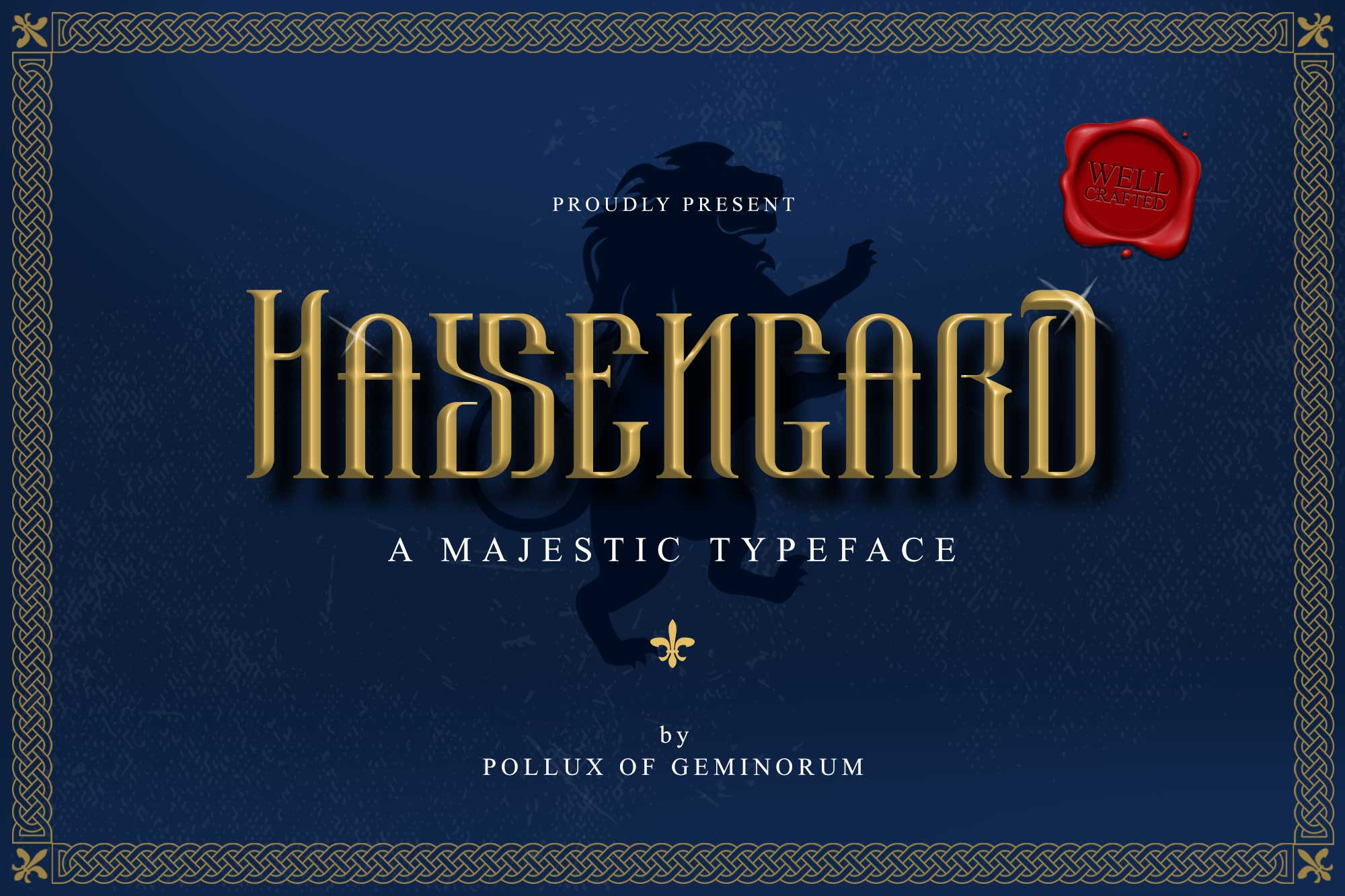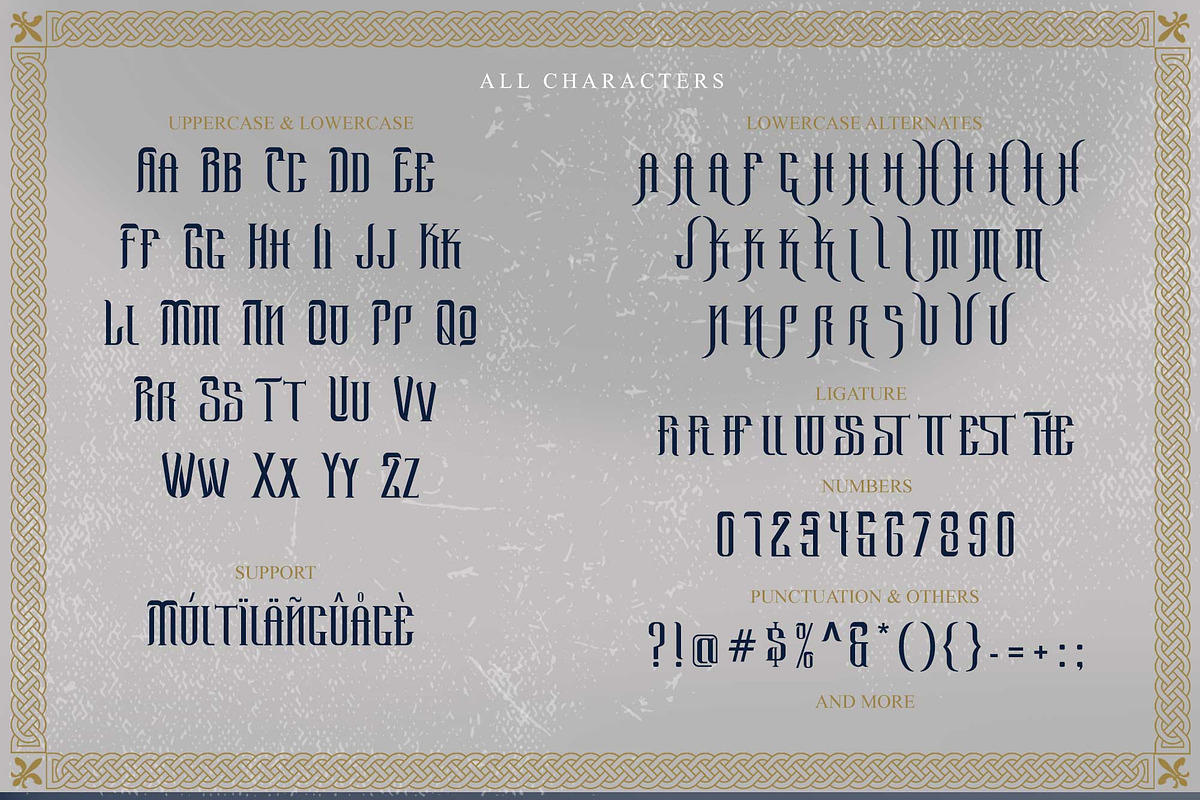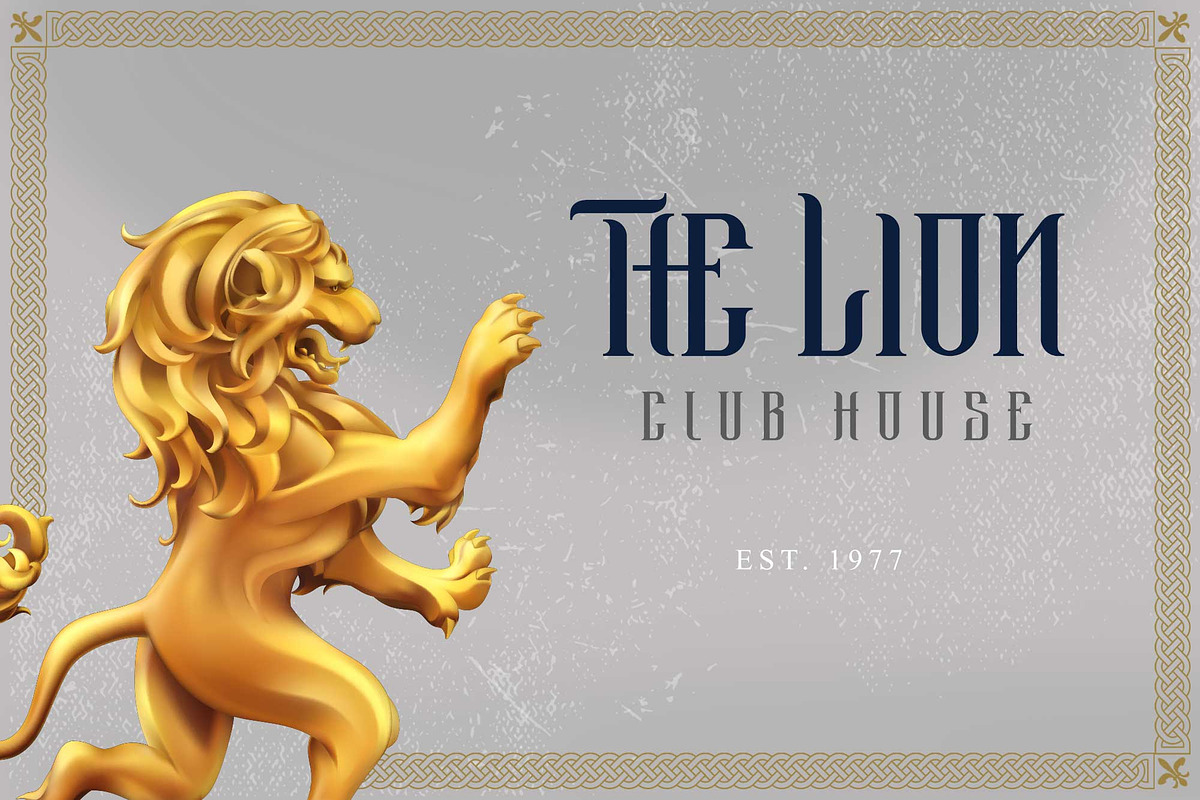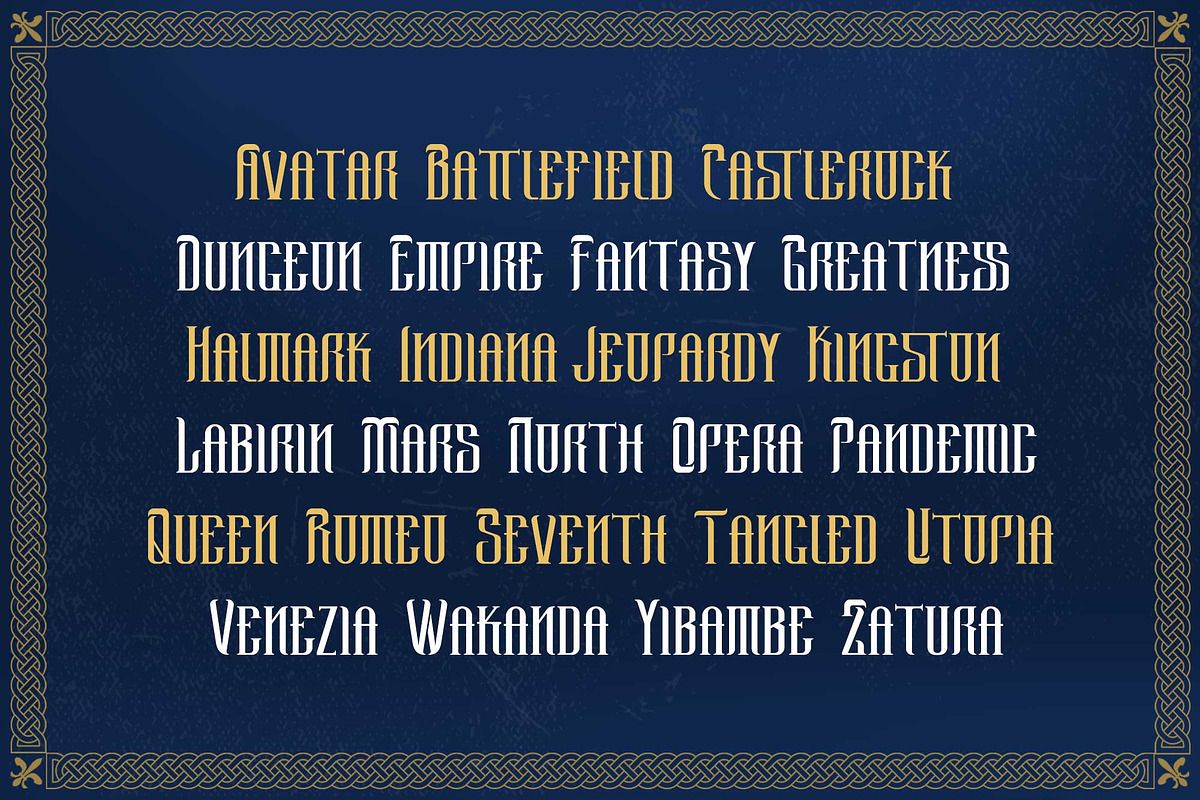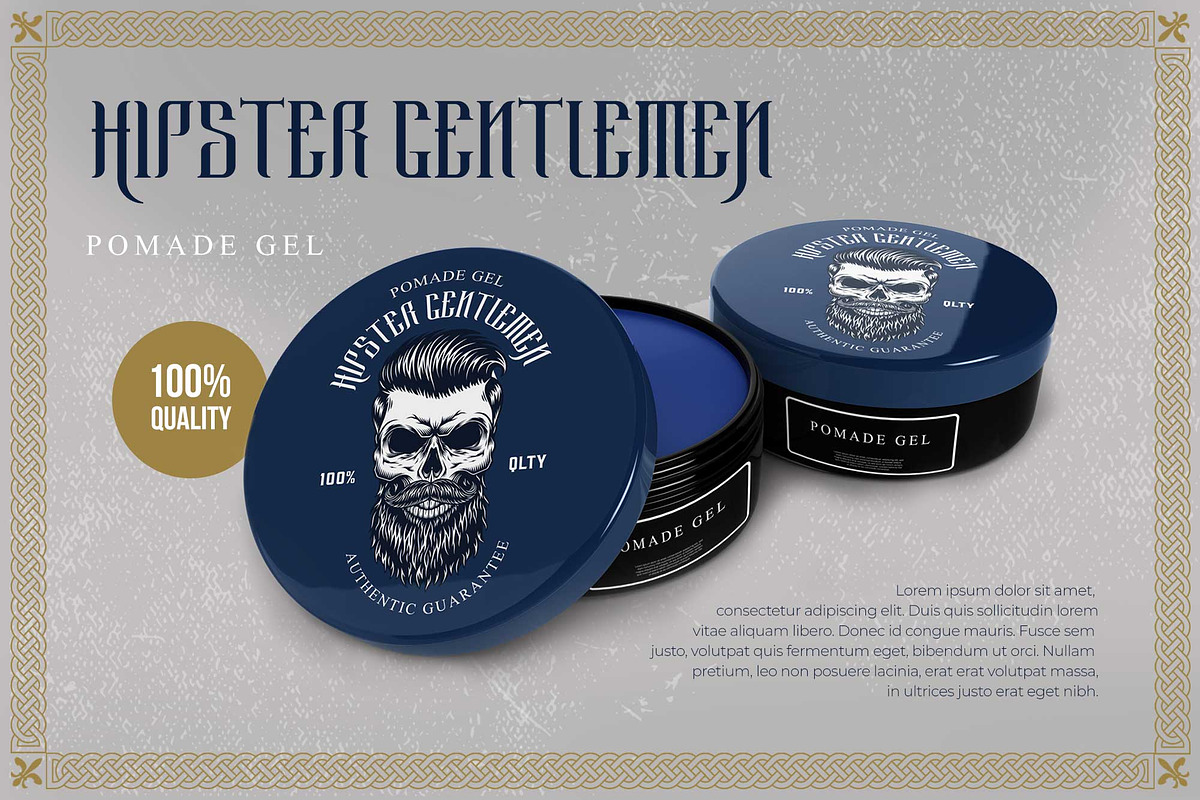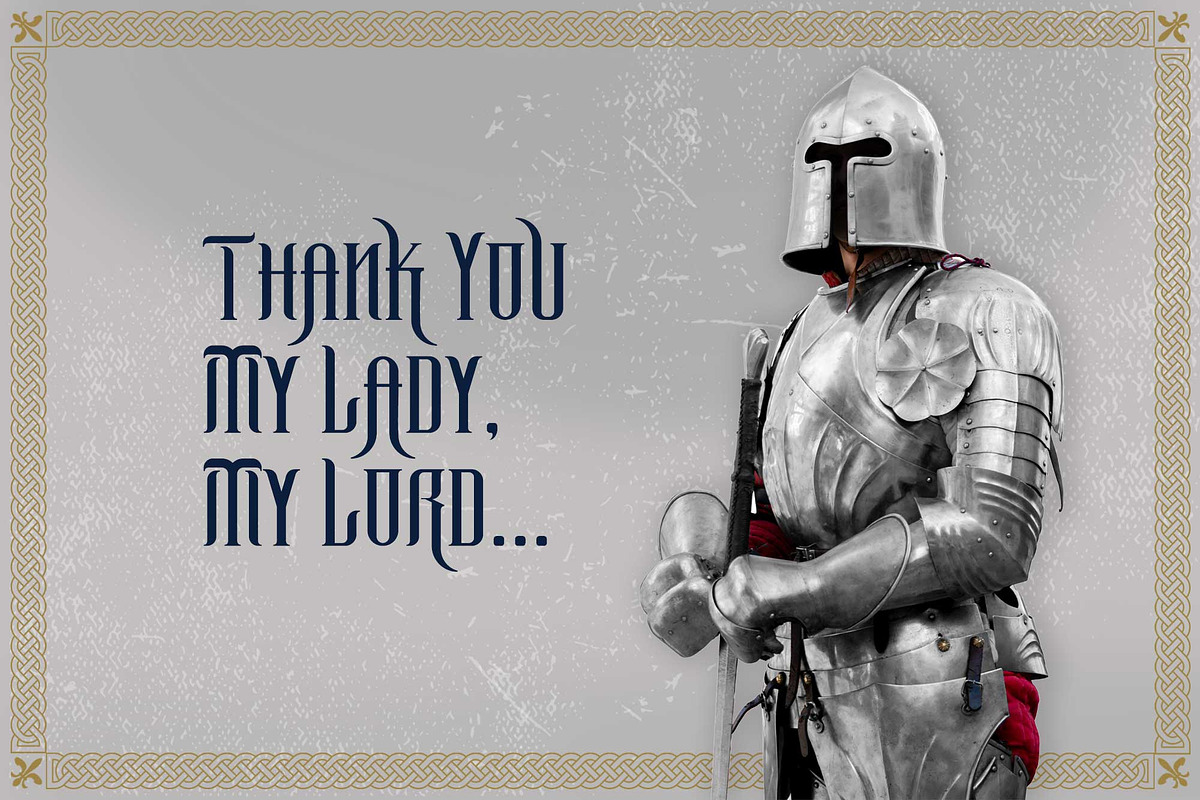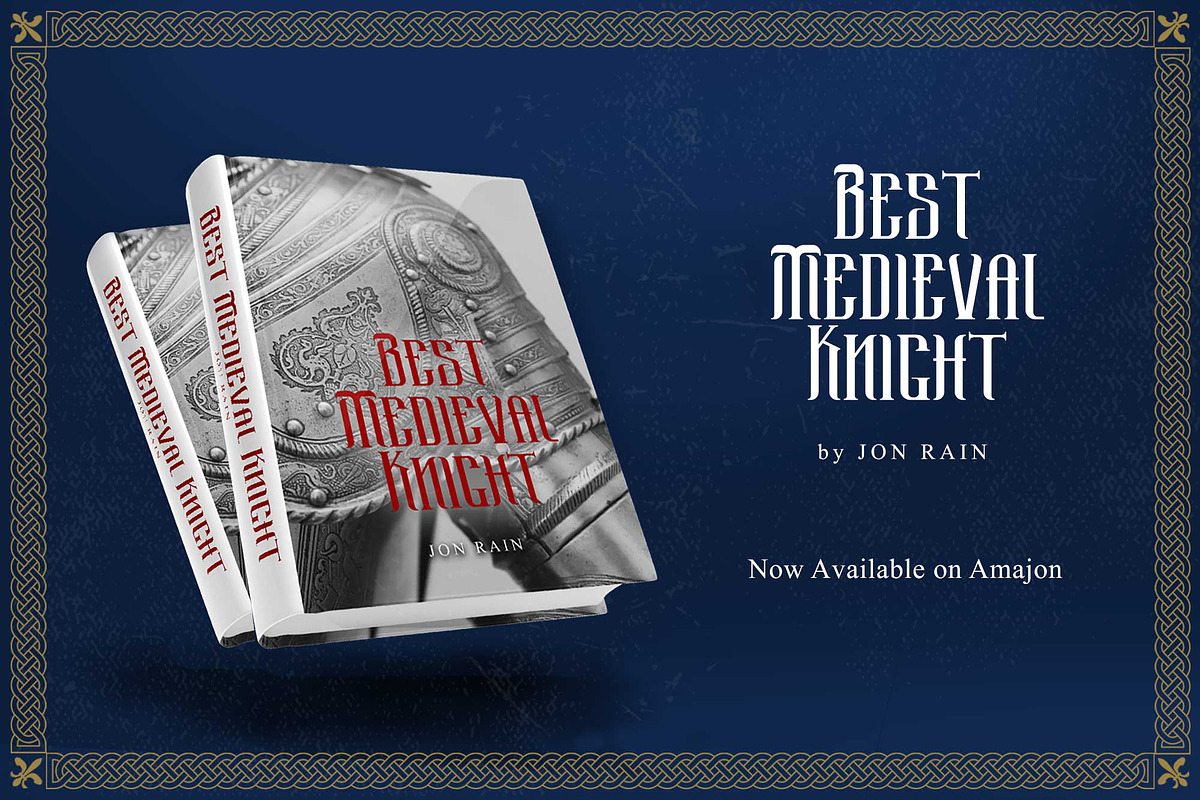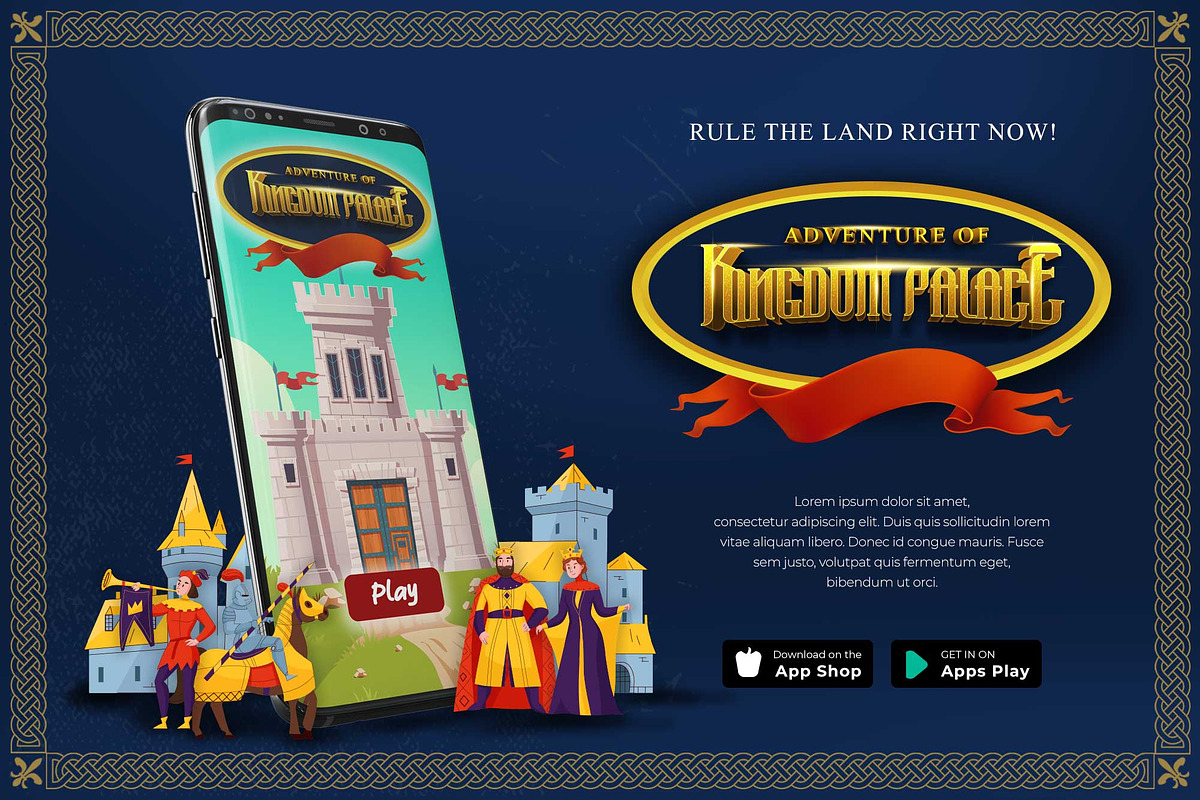
Hassengard - Majestic Fantasy Font
Command attention and evoke the spirit of legends with Hassengard, a majestic display typeface designed for epic storytelling. With its sharp, tall architecture and regal presence, this font bridges the gap between ancient medieval aesthetics and modern professional design.
Hassengard is crafted specifically for high-impact visuals. Whether you are designing an immersive fantasy game UI, a captivating book cover for a historical novel, or a cinematic movie title, this font delivers a sense of power and prestige that is second to none.
Key Highlights:
- Majestic Presence: Tall, sharp letterforms that radiate authority and elegance.
- Rich Customization: Packed with unique ligatures and stylistic alternates to give your titles a bespoke look.
- Versatile Application: From luxury artisan packaging (like pomade or spirits) to digital game interfaces.
- Global Compatibility: Full multilingual support to ensure your message resonates worldwide.
- Stylistic Alternates & Unique Ligatures